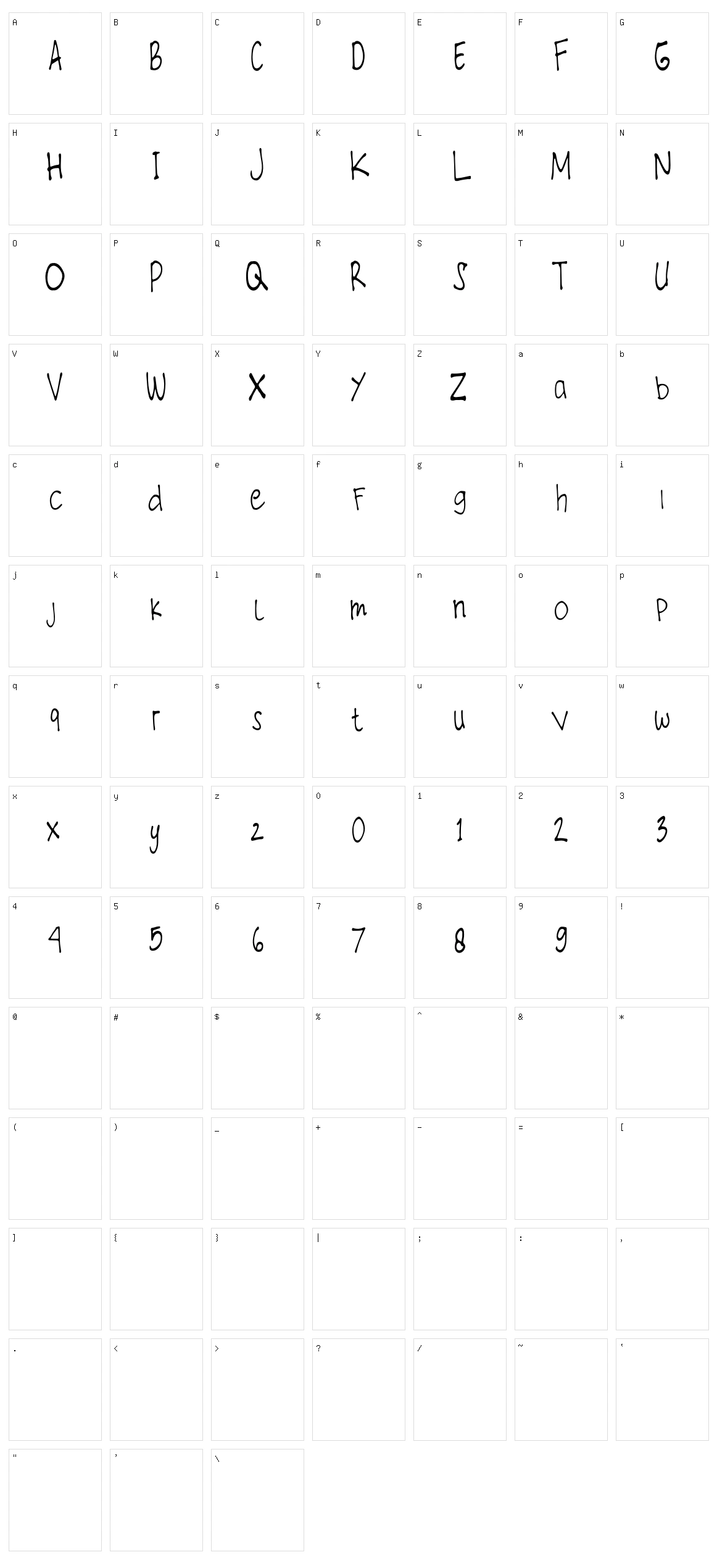
The free font Sketch Art is carefully designed by Sketch Art, showcasing a thoughtful balance of creativity and usability and falls under the Script font style. When you download the ZIP file, it contains only 11.03 KB of font files, making it lightweight and quick to download. Please review the license details below to understand permitted usage and distribution rights. If license information is not available, we recommend using this font for personal projects only or contacting the author directly for commercial usage permissions.